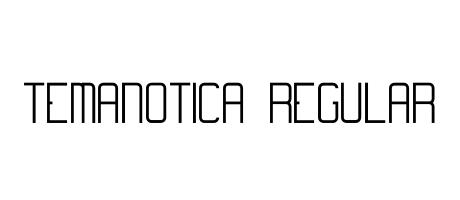
Temanotica
By Espen Morten Kvalheim
Temanotica Regular is a sans-serif typeface with a clean, geometric feel. Its straight lines and consistent stroke width give it a modern, almost technological appearance. The letters are monolinear, creating a sense of simplicity and readability. It suggests efficiency and precision, suitable for a variety of applications from headlines to body text.